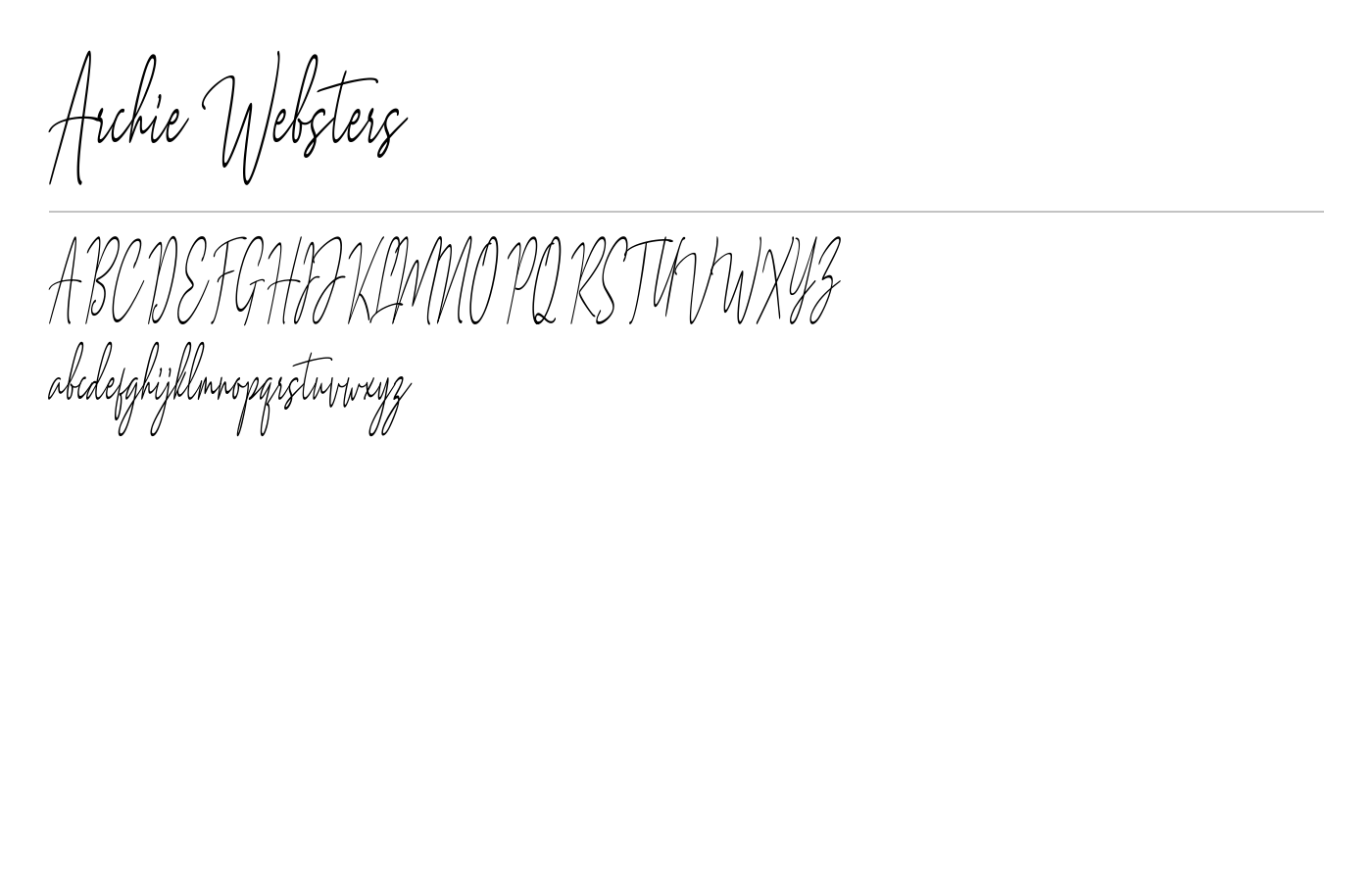
Archie Websters is a delicate, modern script font with tall, slender letterforms that resemble elegant handwriting. Its thin, flowing strokes and high contrast create a refined and airy feel, making it perfect for stylish branding, invitations, and editorial designs where a sophisticated yet approachable look is desired. This font works especially well in headlines and logos, adding a personal, artistic touch to any project.
Archie Websters Font
About Archie Websters Font
| Font family | Archie Websters Font |